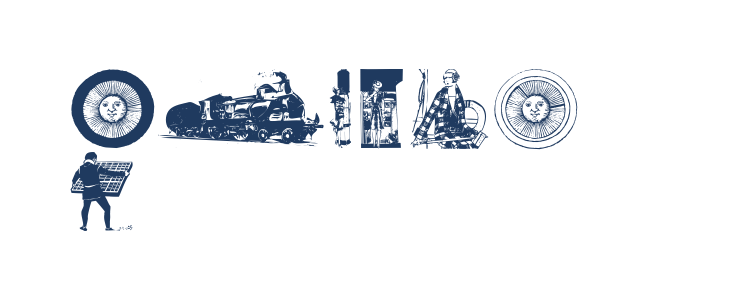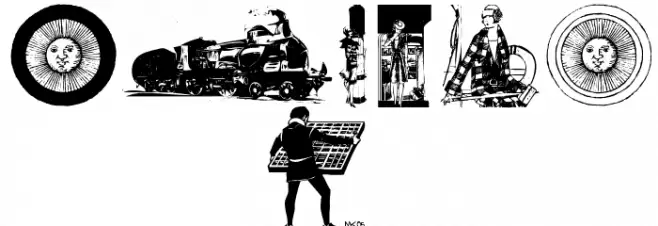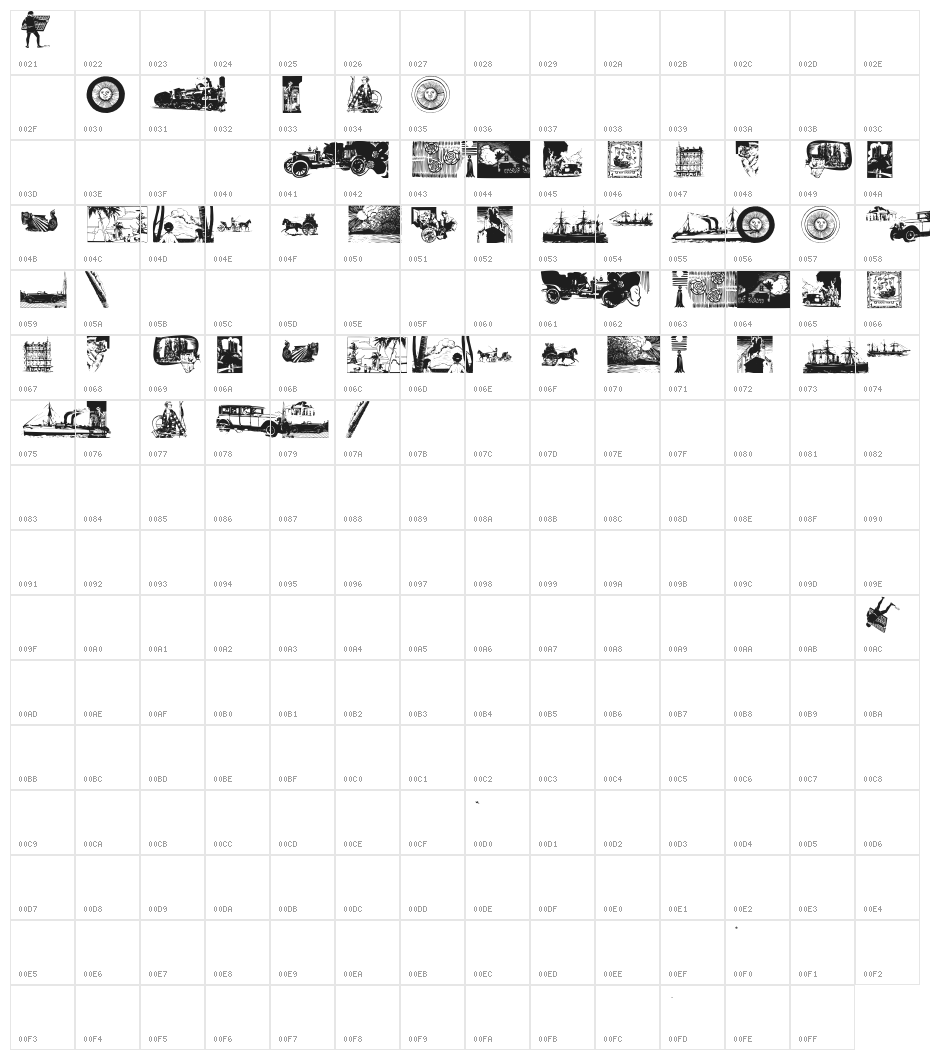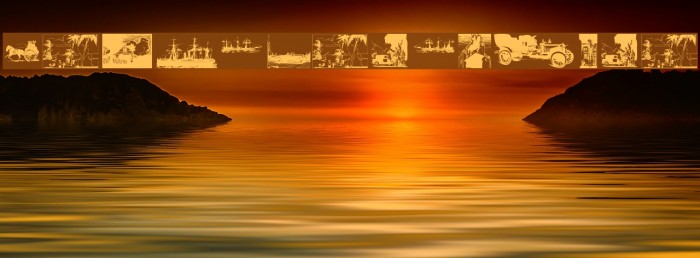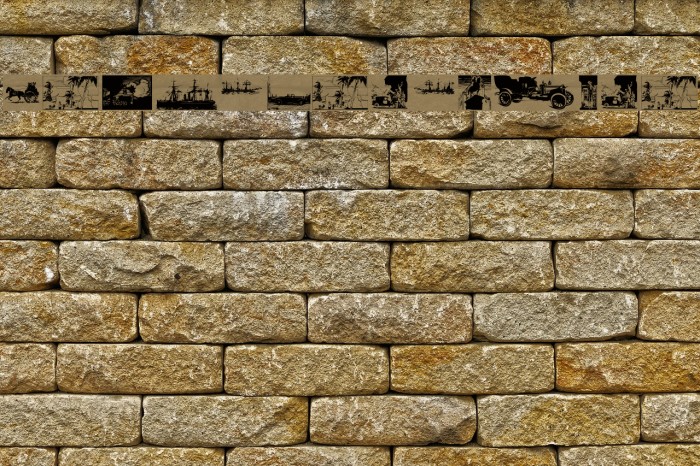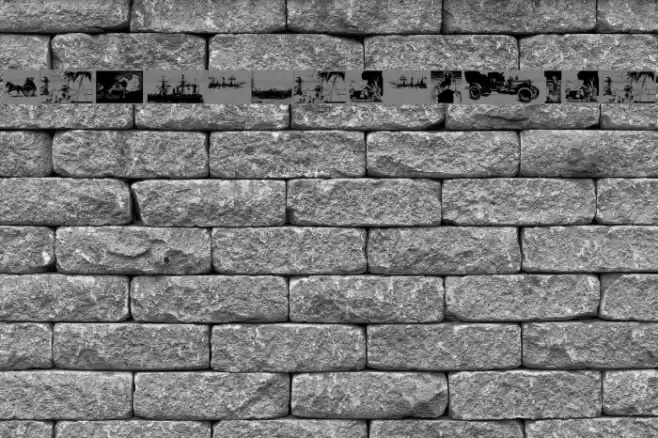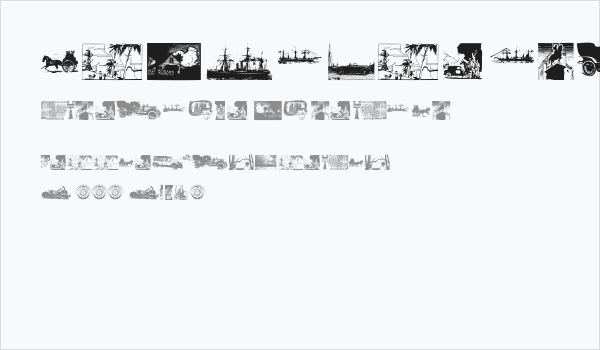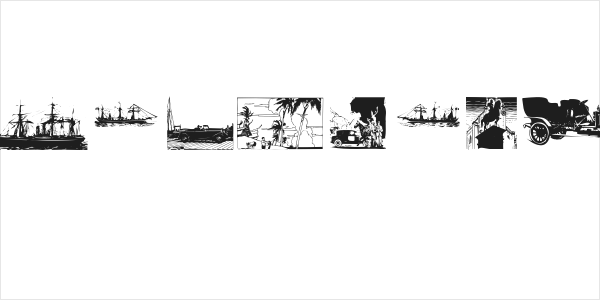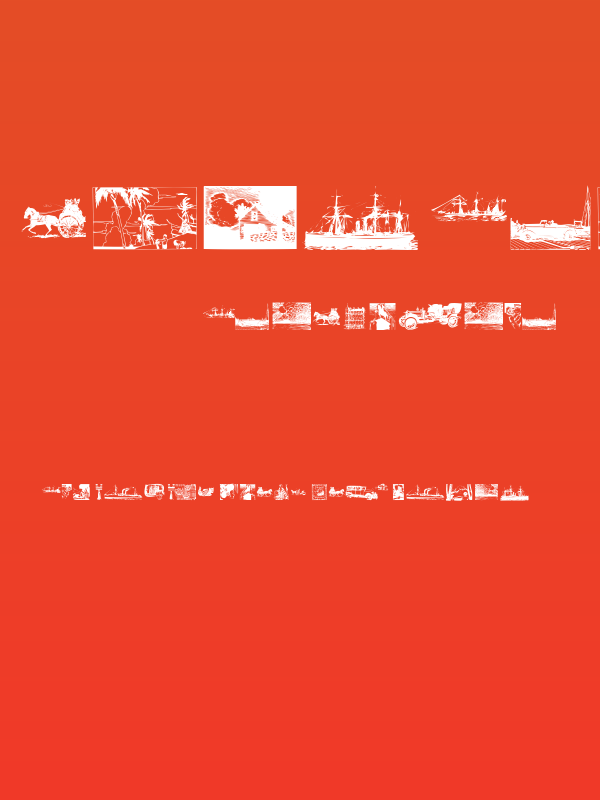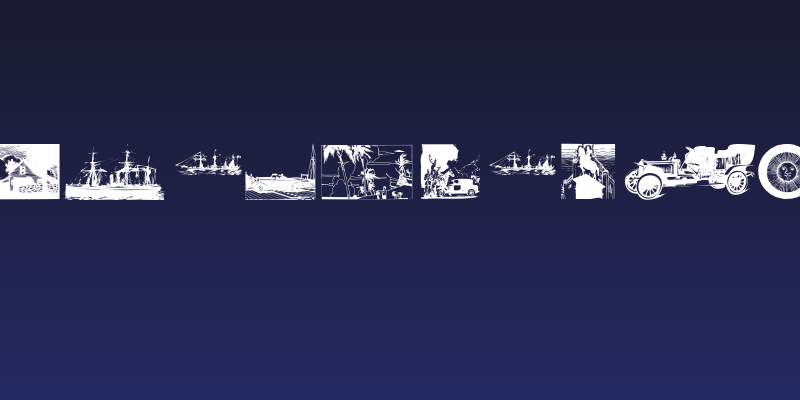
OldStyleTravel Font
OldStyleTravel Description
A decorative dingbat set featuring detailed black-and-white illustrations of vintage transportation, including cars, ships, trains, horse-drawn carriages, and related travel motifs. The images are intricate and evoke a nostalgic, historical feel.
| Overall Style | Vintage, Decorative |
| Use Case | Decorative elements, Thematic dividers, Visual accents |
| Proposed Projects | Posters, invitations, book covers, educational materials, themed event graphics, scrapbooking. |